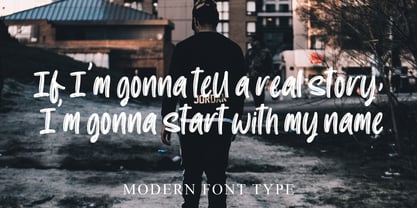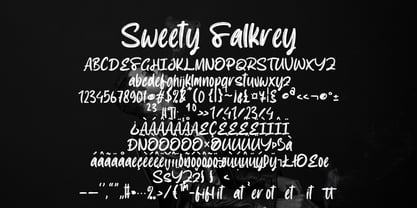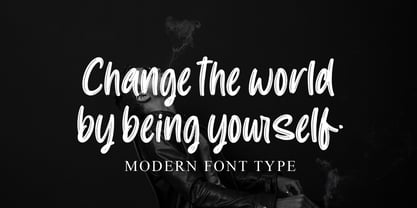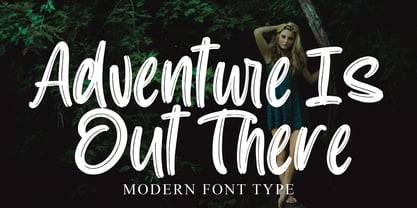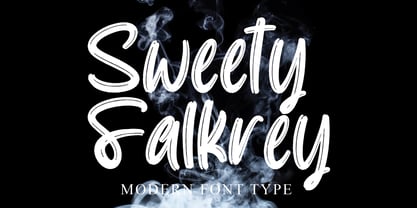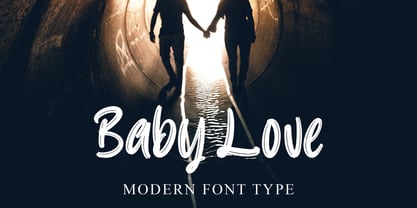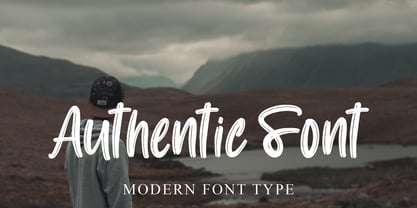
Sweety Falkrey
by Naatypo
The Sweety Falkrey Font Family was designed by Kurnia Elis Setyorini and published by Naatypo. Sweety Falkrey contains 1 styles. More about this family
Unleash your creativity with the enchanting Sweety Falkrey font, ideal for projects that call for a personalized touch. Consider it for inspiring quotes, classy menus, catchy taglines, vibrant flyers, memorable invitations, heartfelt greeting cards, impactful posters, bespoke business cards, stylish clothing designs, expressive letters, personalized stationery, and so much more. Sweety Falkrey, a handwritten font, is artistically crafted with a brush making it rich in stylistic alternates and ligatures. Its unique style breathes life into your project, giving it the charm and elegance it deserves.
Designers: Kurnia Elis Setyorini
Foundry: Naatypo